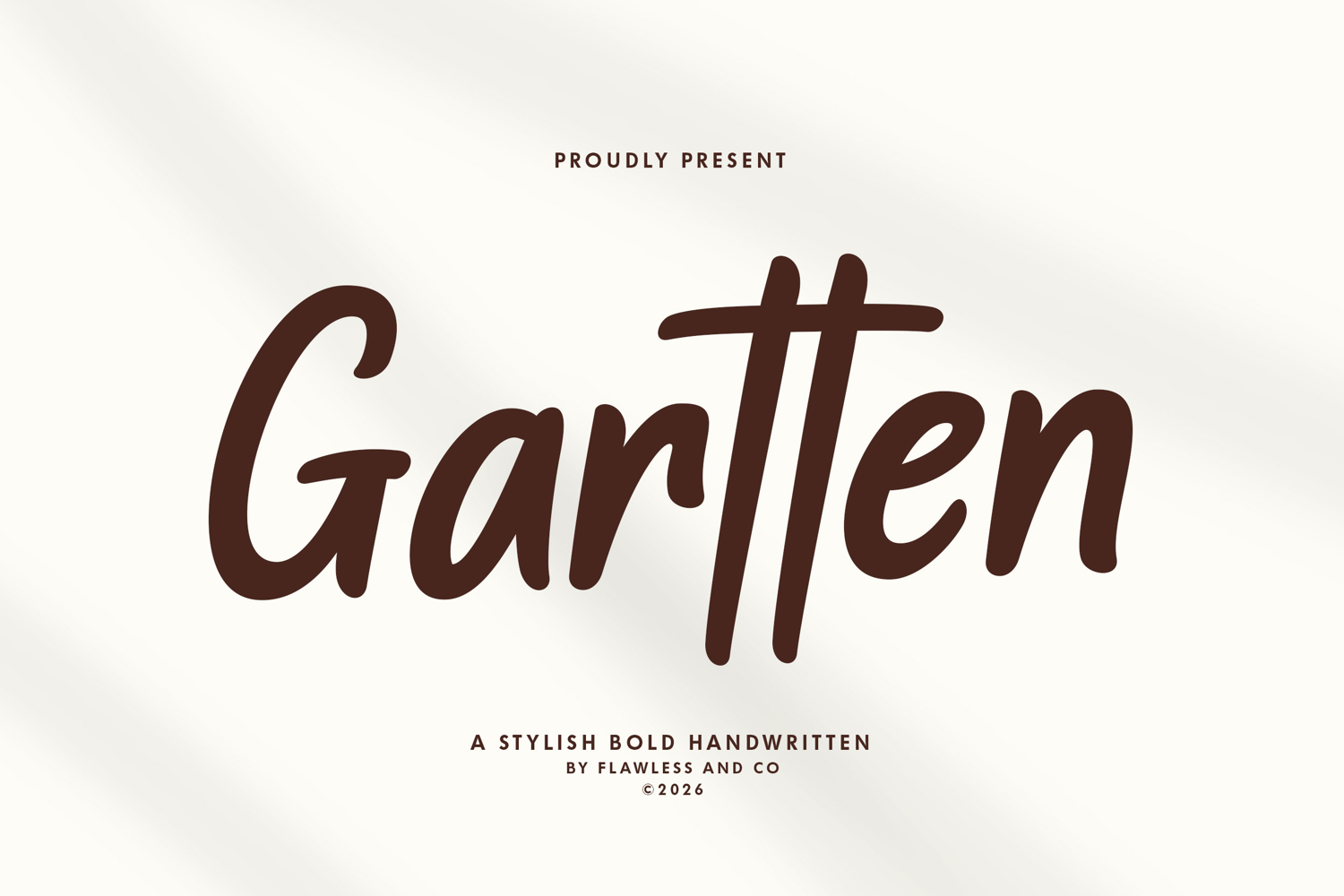
Gartten
GARTTEN
Gartten - Bold Handwritten Font
Gartten is a stylish bold handwritten font designed to bring warmth, and expressive character to your designs. With its smooth curves, natural strokes, and confident handwritten flow, Gartten captures an authentic and modern handwritten feel while maintaining strong visual impact.
Who Should Use Gartten?
Gartten is perfect for designers, entrepreneurs, and creatives who want to add a bold and expressive handwritten touch to their projects. It’s ideal for brand designers creating signature-style logos, business owners and approachable brand identity, and content creators who need eye-catching typography for social media and marketing materials.
Suitable for:
• Logo and signature-style branding
• Product packaging and labels
• Social media graphics and content
• Posters and promotional materials
• Creative quotes and typography art
• Wedding invitations and stylish stationery